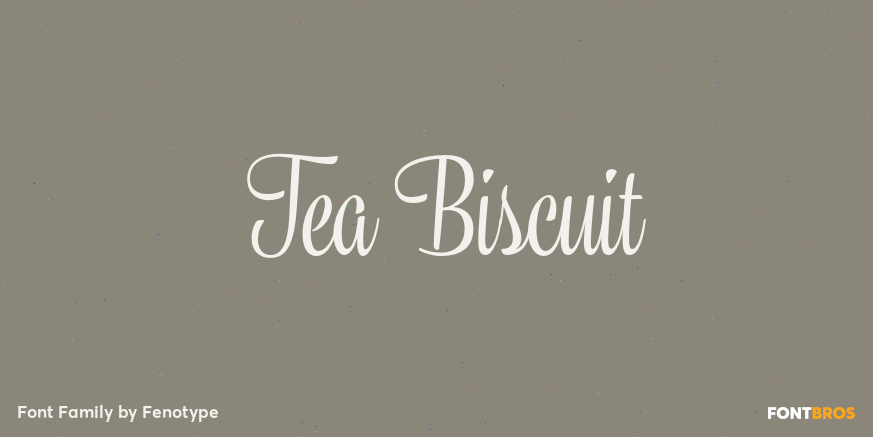
About Tea Biscuit
Tea Biscuit is a classy upright script family with it roots in the past. It\’s inspired by hand lettering of the 1950s but finished with a modern, smooth appearance. The Tea Biscuit Family contains four weights, each of which contains more than 1200 glyphs,…